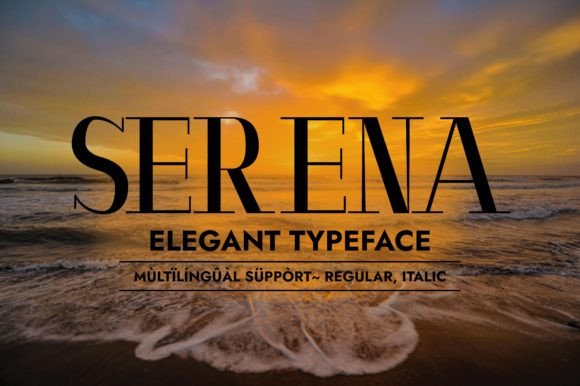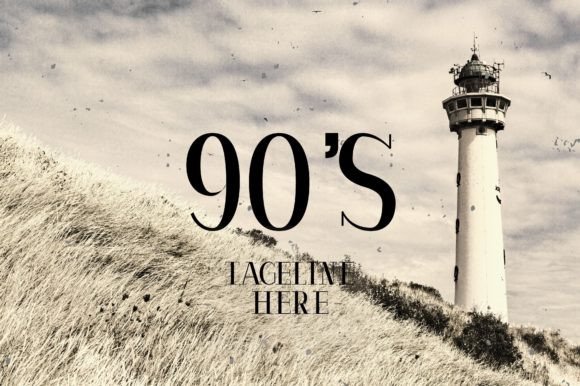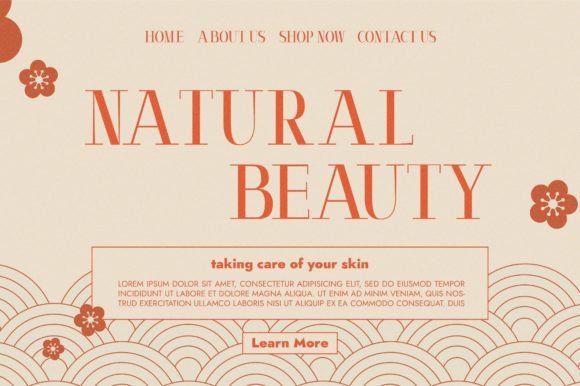
Serena
Serena: An Elegant and Romantic Slab Serif Font
Serena is an elegant and romantic slab serif font that is perfect for packaging design, magazine covers, website banners, and much more. Use it on any of your creative designs, and they will capture everyone’s attention!
Key Features of Serena
• Elegant Design: Offers a sophisticated and refined look suitable for various applications.
• Slab Serif Structure: Features distinctive serifs that add character and style.
• Romantic Appeal: Brings a touch of romance and charm to designs.
• Versatile Application: Ideal for both print and digital media projects.
Ideal Uses for Serena
Serena’s unique characteristics make it particularly well-suited for:
When incorporating Serena into your designs, consider these tips:
• Use for headlines or short blocks of text to showcase its elegant style.
• Experiment with different sizes to highlight the font’s romantic features.
• Utilize its versatility to create designs that capture attention across various media.
Serena is an excellent choice for designers looking to add an elegant and romantic slab serif font to their typographic toolkit. Its ability to bring sophistication and charm to various design projects makes it stand out in the world of typography. Whether you’re working on packaging design, creating magazine covers, or developing content for website banners, Serena offers the perfect blend of style and versatility.
Furthermore, Serena’s unique design allows it to shine in various contexts. From luxury product packaging to wedding invitations, this font can elevate your projects with its distinctive style. Its elegant yet readable appearance works particularly well in designs that aim to evoke feelings of romance and sophistication.
In conclusion, Serena is a font that truly captures the essence of elegance and romance in typography. Its ability to work well across a wide range of applications showcases its versatility. For those looking to add a touch of refined charm to their work, Serena can enhance themed creations with its distinctive style. It’s the perfect choice for designers seeking to make a sophisticated, stylish impact across a wide range of creative projects.